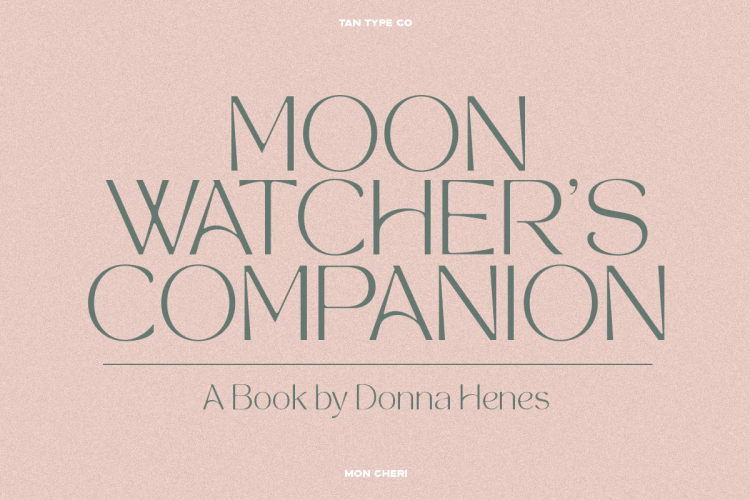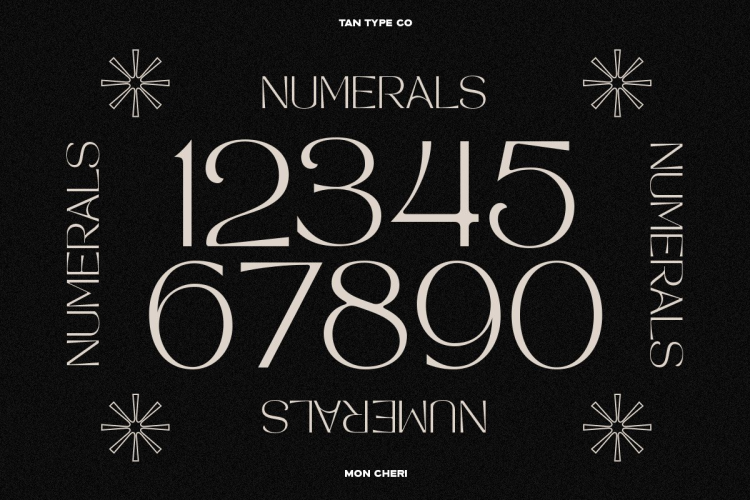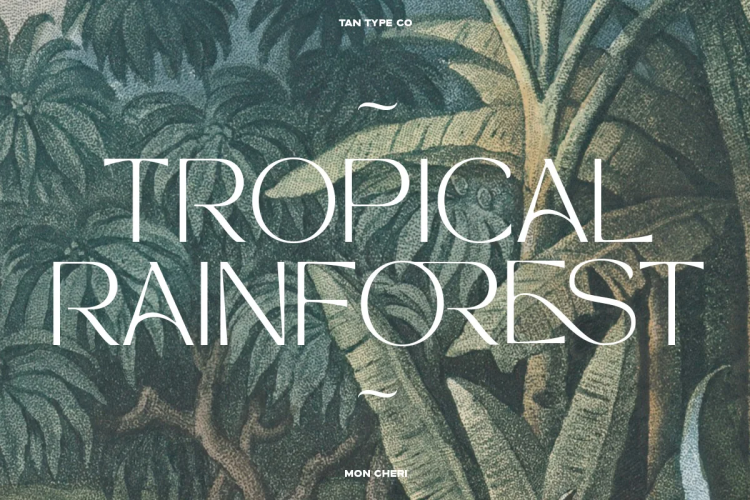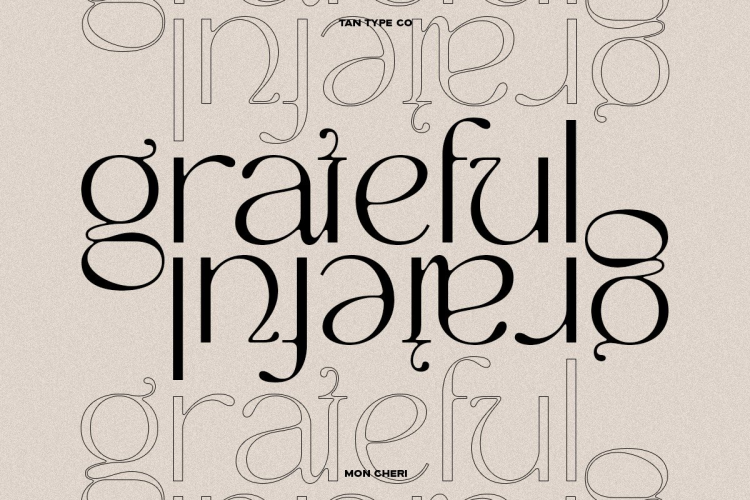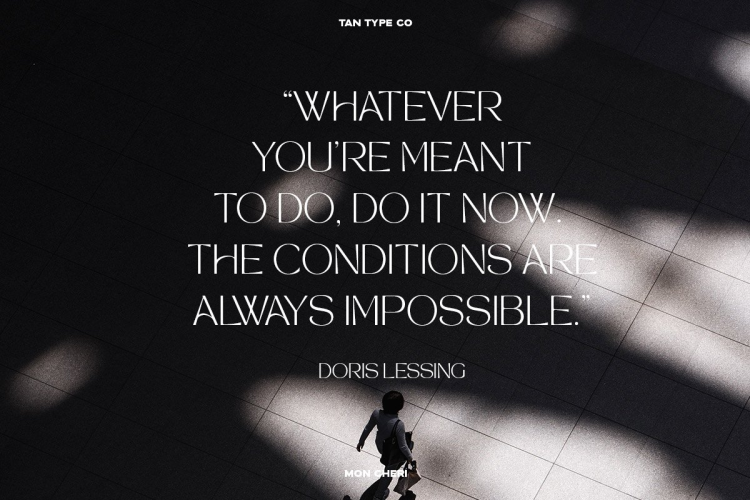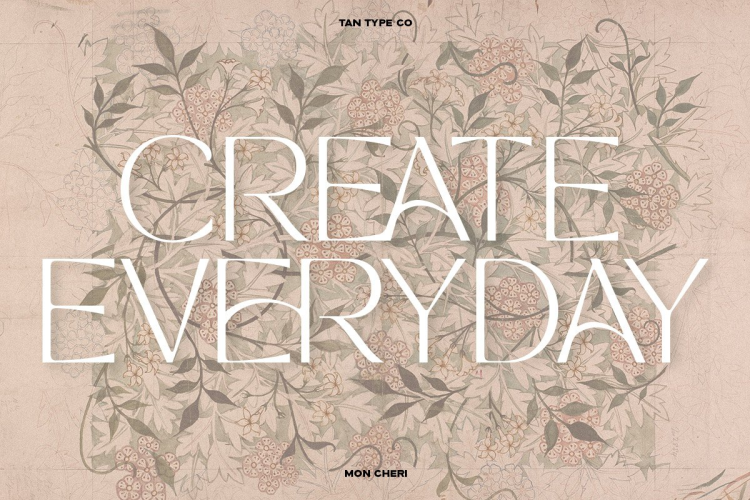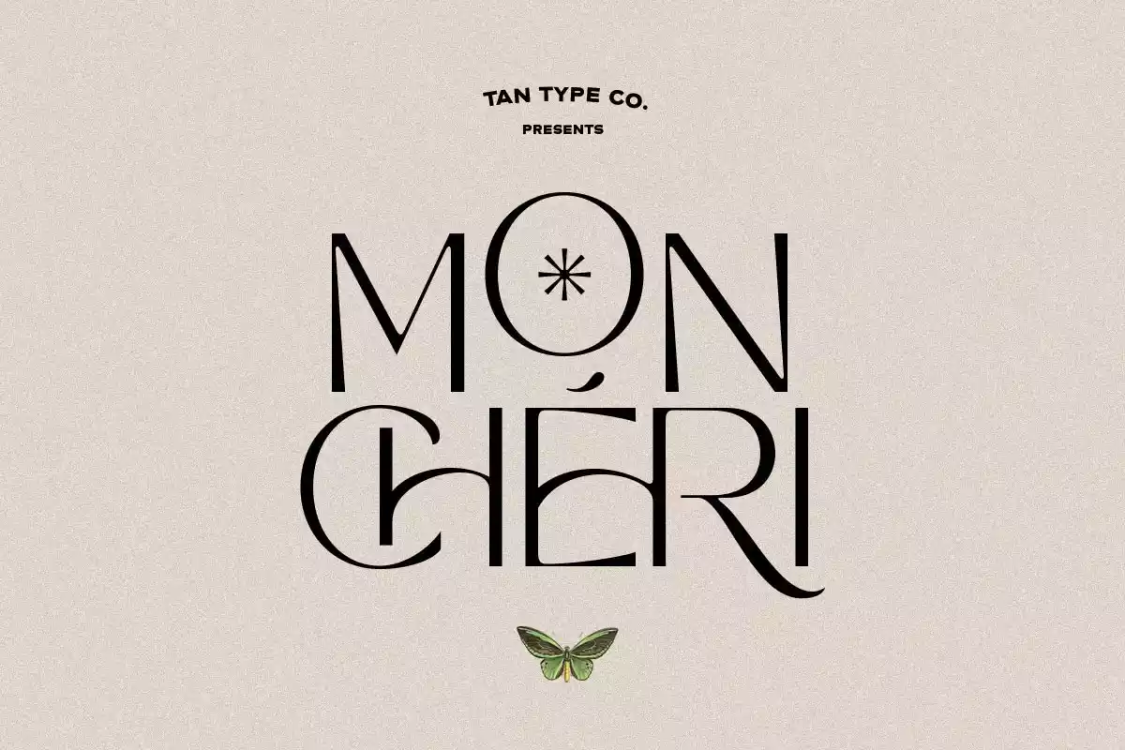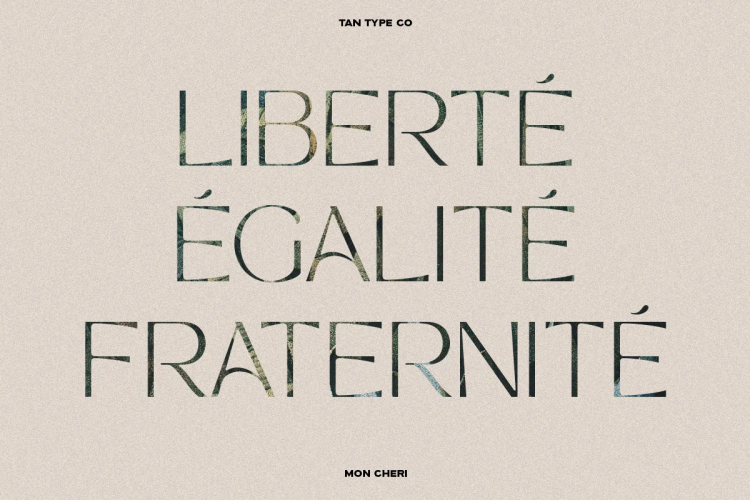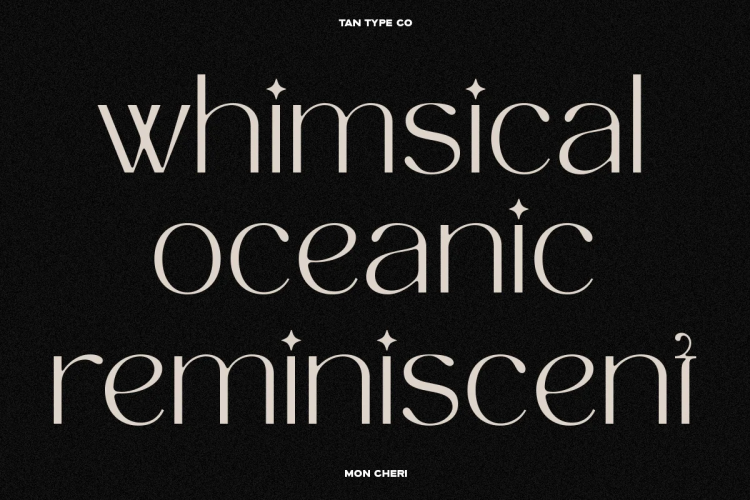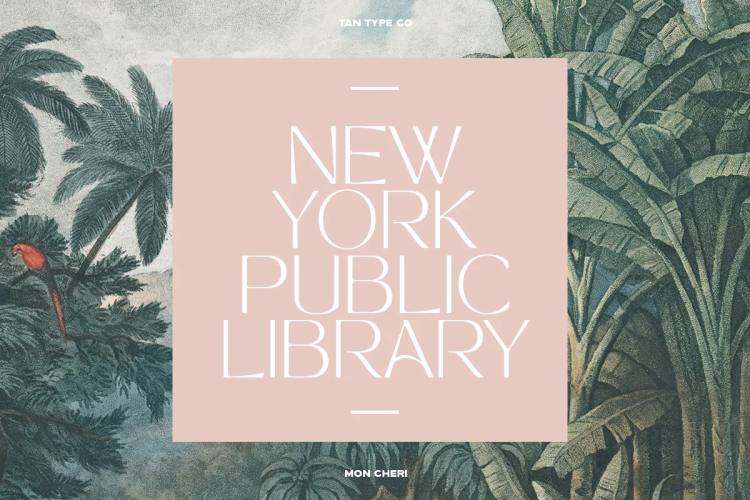
TAN MON CHERI FONT
TAN MON CHERI is an elegant serif font with simple letter shapes and lively ligatures. Since it is highly legible, it brings a sense of charm to any project, making it a…
TAN MON CHERI is an elegant serif font with simple letter shapes and lively ligatures. Since it is highly legible, it brings a sense of charm to any project, making it a good choice for versatile design applications. TAN MON CHERI offers a range of features such as versatility and support for popular font formats, making it a desirable typeface for designers who need timeless sophistication in their typography.
Where TAN MON CHERI FONT works best
TAN MON CHERI FONT gives long-form text a classic, trustworthy rhythm — ideal for magazine spreads, annual reports and book interiors.
Pair TAN MON CHERI FONT with generous letter-spacing for wordmarks in fashion, hospitality, wine and jewellery branding.
What is TAN MON CHERI FONT good for?
TAN MON CHERI FONT is a Serif Fonts typeface tagged Classic, Elegant, Playful, Readable. It works well for headlines, logos, posters, social media graphics and branding projects that need a distinctive serif fonts look.